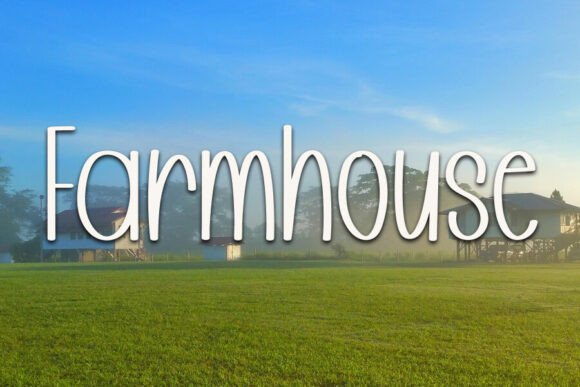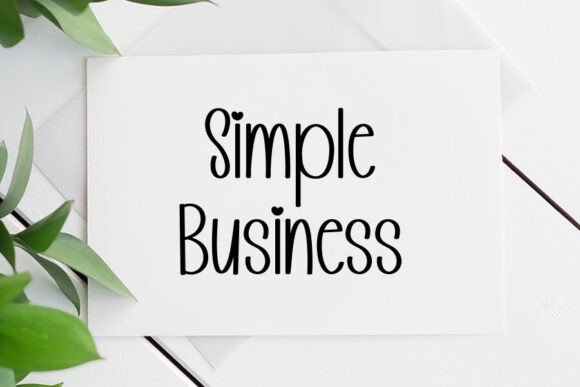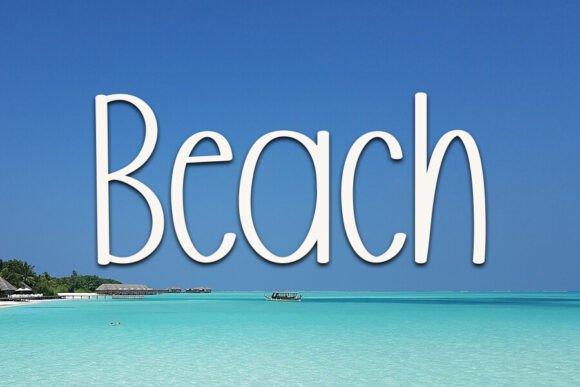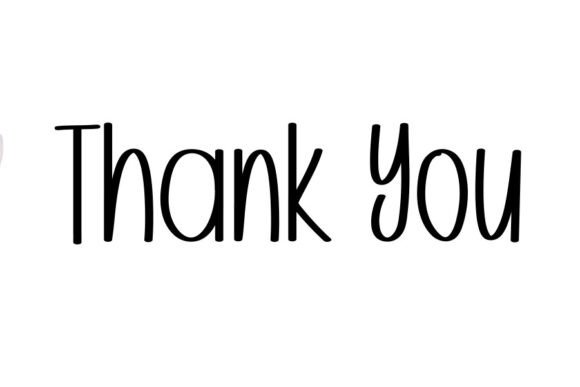
Introducing Drawing Font: The Simple Handwritten Font for Creative Projects
Are you looking for a font that can add a personal touch to your creative projects? Look no further than Drawing Font, a simple handwritten font that is versatile and easy to use. In this article, we’ll explore the features and benefits of Drawing Font, and show you how it can be used to add a natural and effortless feel to your designs.
What is Drawing Font?
Drawing Font is a carefully crafted handwritten font that is designed to mimic the look and feel of hand-drawn letters. It’s a simple yet elegant font that is perfect for a wide range of applications, from greeting cards and invitations to headlines and titles. With its clean lines and natural flow, Drawing Font is guaranteed to add a touch of warmth and personality to your designs.
Features of Drawing Font
- Simple and Handwritten: Drawing Font has a simple and handwritten style that gives it a unique and personal feel.
- Versatile: This font can be used for a wide range of applications, from print materials like greeting cards and brochures to digital media like social media graphics and blog posts.
- Easily Readable: Drawing Font is designed to be easily readable, making it perfect for headlines, titles, and short paragraphs of text.
- Natural Flow: The font has a natural flow that makes it look like it was written by hand, adding a touch of warmth and personality to your designs.
Benefits of Using Drawing Font
So why should you choose Drawing Font for your next project? Here are just a few benefits of using this versatile font:
- Adds a Personal Touch: Drawing Font adds a personal touch to your designs, making them stand out from the crowd and giving them a unique feel.
- Flexible: Drawing Font can be used for a wide range of applications, from print materials to digital media, making it a great addition to your font library.
- Pair it with Other Fonts: Drawing Font can be paired with other fonts to create a unique and interesting look. Try pairing it with a bold font for headlines or a sans-serif font for body text.
- Use it for Headlines: Drawing Font is perfect for headlines and titles, where its simple and handwritten style can really shine.
- Add it to Your Digital Designs: This font can be used for digital media like social media graphics, blog posts, and email newsletters, adding a personal touch to your online designs.
- Experiment with Colors: Drawing Font looks great in a variety of colors, from bright and bold to soft and pastel. Experiment with different colors to find the perfect look for your design.
Drawing Font is a simple yet versatile handwritten font that is perfect for designers and crafters who want to add a personal touch to their designs. With its clean lines, natural flow, and ease of use, this font is guaranteed to add a simple and natural feel to your next project. Whether you’re creating print materials or digital media, Drawing Font is a great choice for anyone looking to add a touch of warmth and personality to their designs.
- Experiment with Different Sizes: Drawing Font looks great in a variety of sizes, from small and delicate to large and bold.
- Use it for Branding: This font can be used for branding and marketing materials, adding a personal touch to your company’s image.
- Combine it with Images: Drawing Font looks great when combined with images and illustrations, adding a touch of personality to your designs.